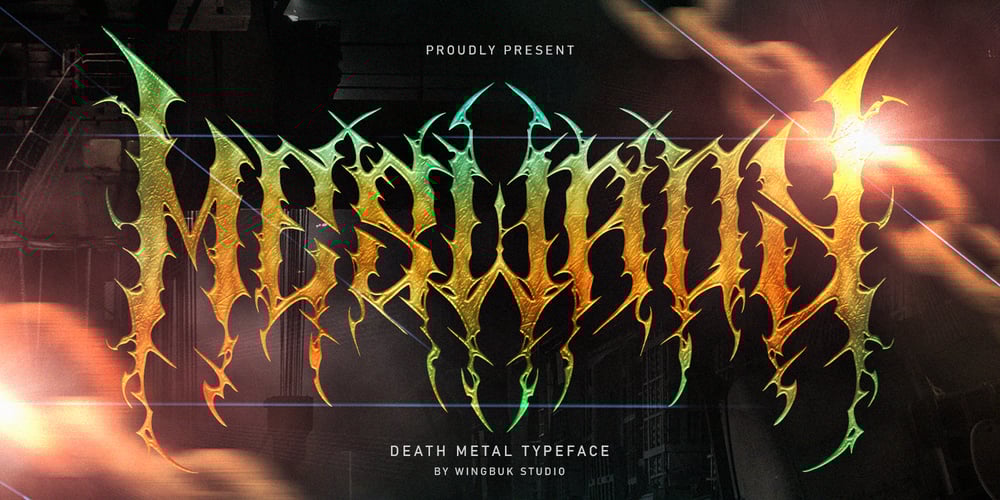
Meswady Metal
Meswady Metal font
Meswady Metal Font Family was designed by Adji Shaka and published by WingBuk Studio. Meswady Metal contains 1 styles and family package options. Meswady is a rare item from us ! Giving you a stunning impression of the ferocity of a metal font that’s very easy to implement. Perfect for metal band logo, metal apparel, merchandise, concert posters, even movie posters.Tutorial how to use : https://youtu.be/w0CGrP8sC7kRecomended Software to use: Corel Draw Adobe Photoshop Adobe Illustrator